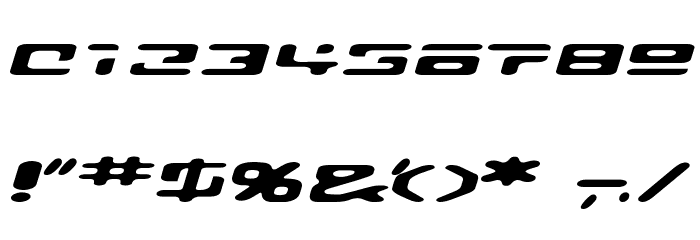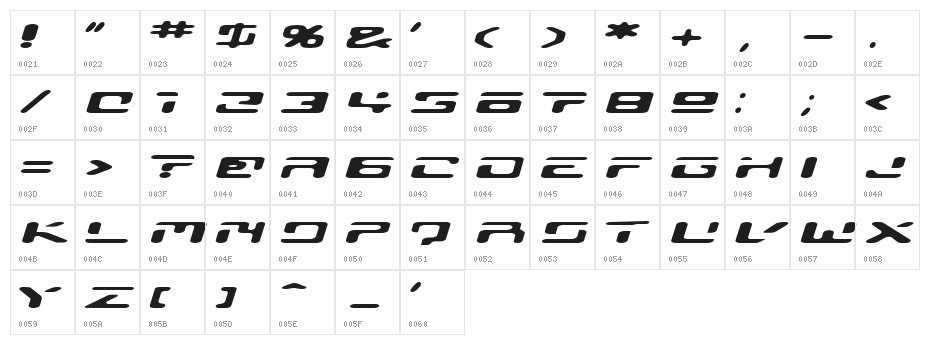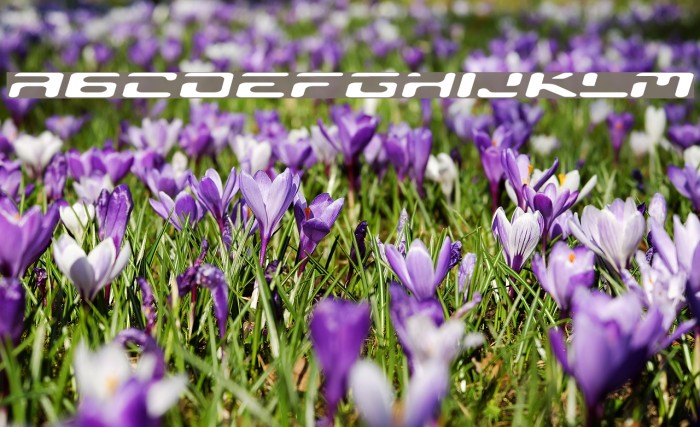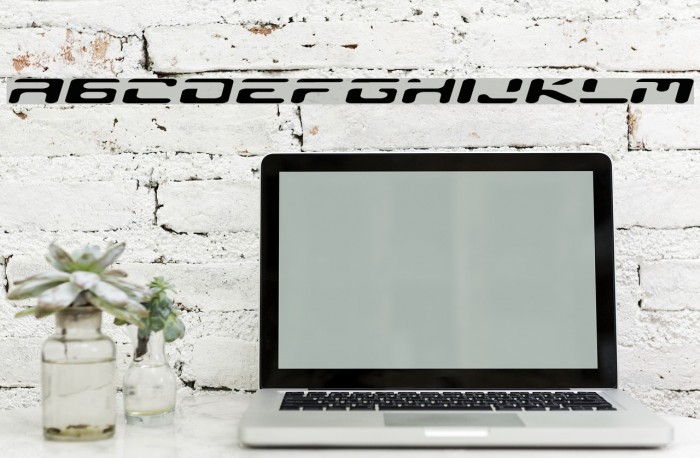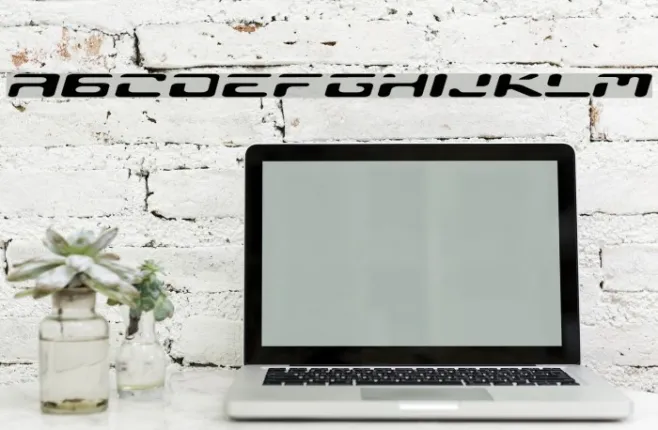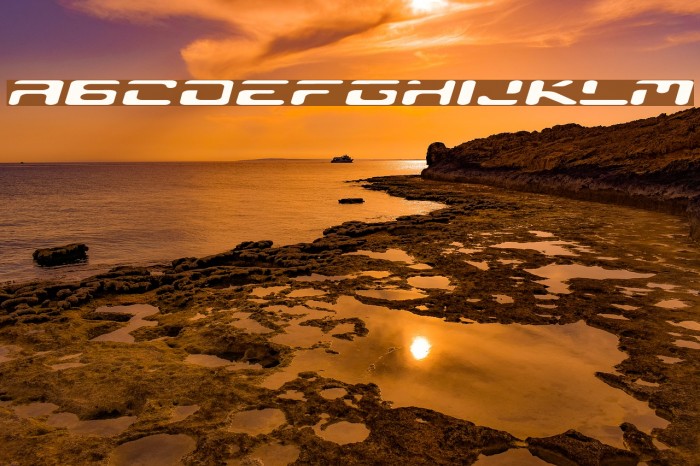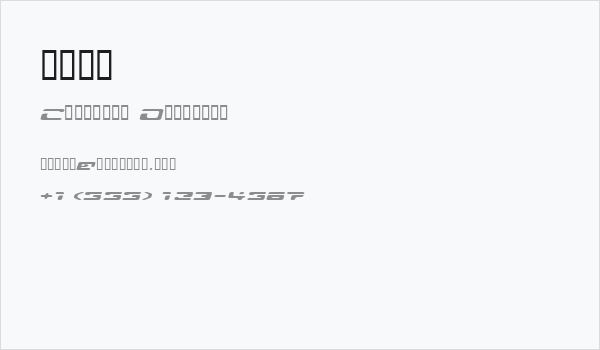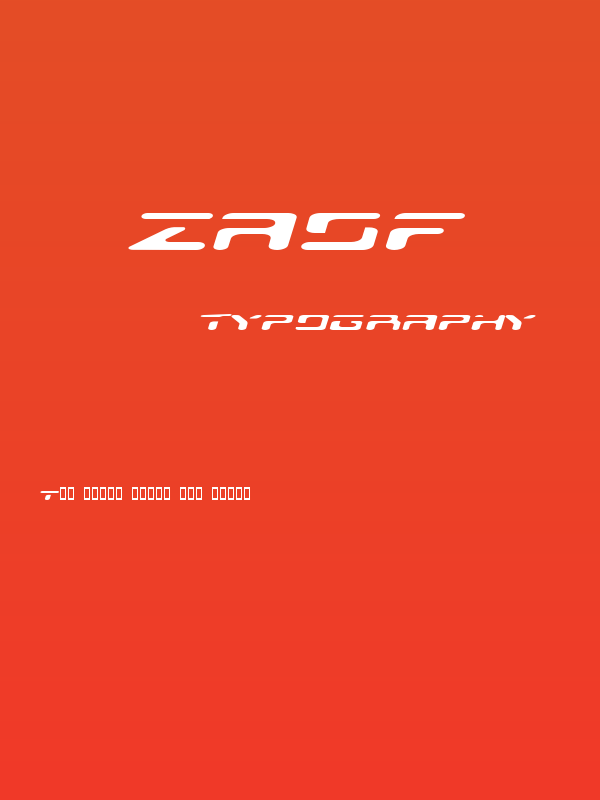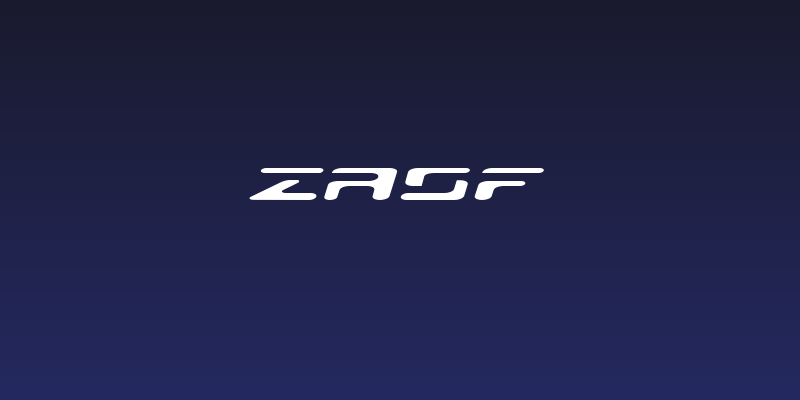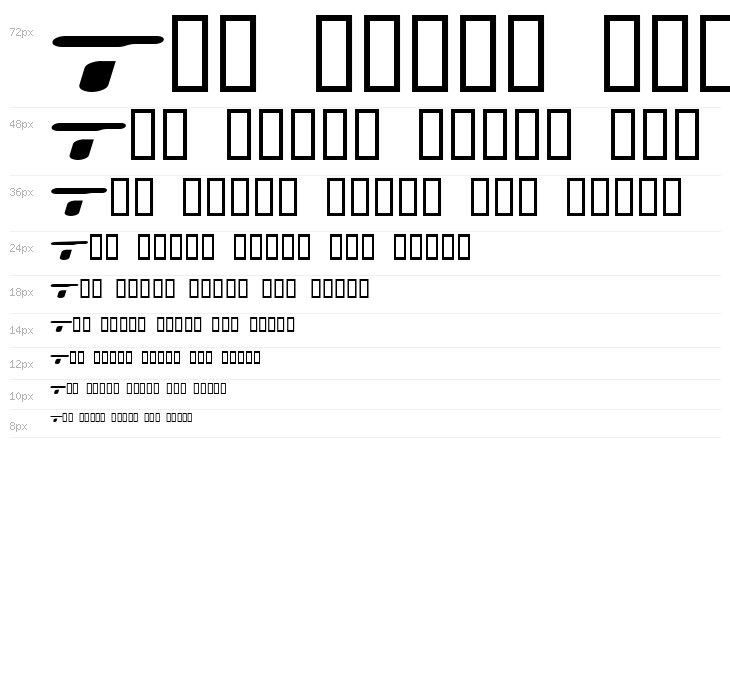
zasf Font
zasf Description
This font features a futuristic and sleek design with a strong emphasis on smooth, flowing lines and rounded edges. The uppercase letters are slightly italicized, giving a sense of motion and speed. The lowercase letters are not visible, but the numbers and special characters maintain the same dynamic style. The overall appearance is modern and tech-inspired, making it suitable for projects that require a cutting-edge look. The characters are evenly spaced, ensuring readability while maintaining a unique aesthetic.
| Proposed Projects | Ideal for technology branding, sci-fi movie titles, video game interfaces, and modern advertising campaigns. |